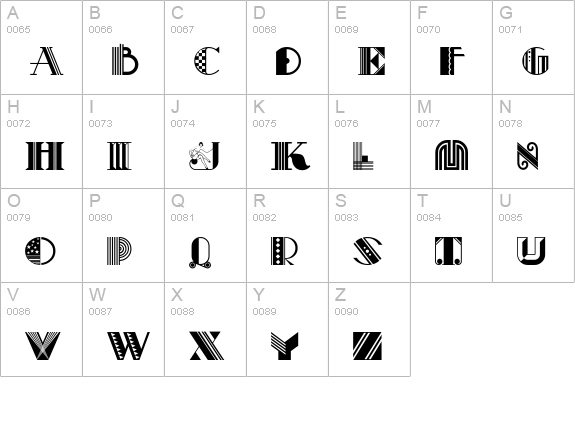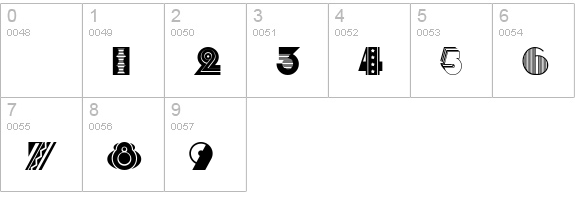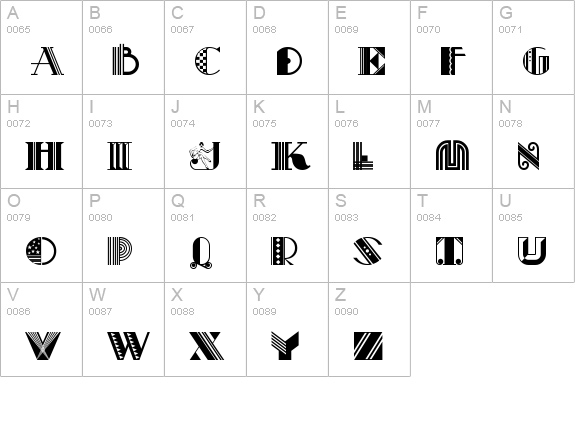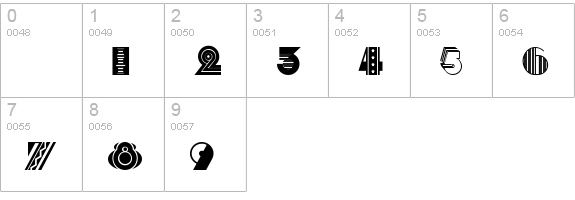
Pastiche Font Details
Introducing Pastiche, a breathtakingly beautiful font that embodies the essence of elegance and sophistication. This versatile typeface effortlessly blends classic charm with a modern twist, making it the perfect choice for any design project. Pastiche's graceful curves and delicate serifs create a sense of timeless beauty, while its clean lines and balanced proportions add a contemporary touch. Whether used for headlines, body text, or branding, this font is sure to captivate and inspire. What sets Pastiche apart is its versatility and adaptability. With a wide range of weights and styles, including regular, bold, italic, and more, you have the freedom to create a truly unique typographic experience. From luxurious wedding invitations to sleek corporate branding, Pastiche effortlessly elevates any design to new heights of sophistication. But what's even more remarkable about Pastiche is that it is free. Yes, you read that right – this exceptional font is freely available to download at FontsMarket.com. Now you can indulge in its breathtaking beauty without breaking the bank. So why wait? Discover the allure of Pastiche and unleash your creativity with this stunning font. Download it today at FontsMarket.com and embark on a journey of design excellence. Whether you're a professional designer or a passionate hobbyist, Pastiche is the perfect companion to bring your vision to life.